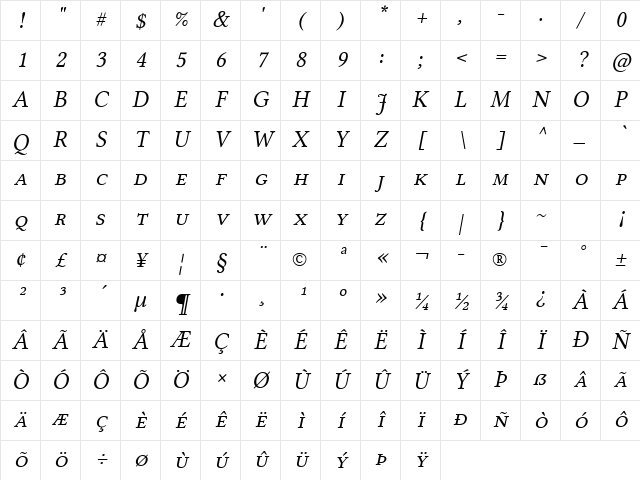
Linux Libertine Capitals Italic
Foundry: Philipp H. Poll
Designer: Philipp H. Poll
Design Context for Linux Libertine Capitals
Linux Libertine Capitals is a composed and adaptable typeface that performs quietly and consistently across a wide range of design contexts. The slanted form adds forward momentum and visual energy.
Pro Tip: Use Linux Libertine Capitals for emphasis, pull quotes, and subheadings where its slanted energy can add rhythm to the layout.